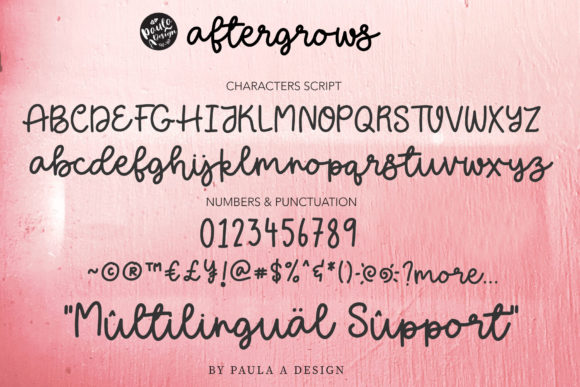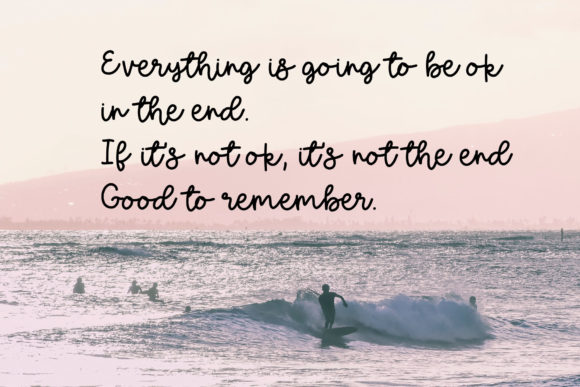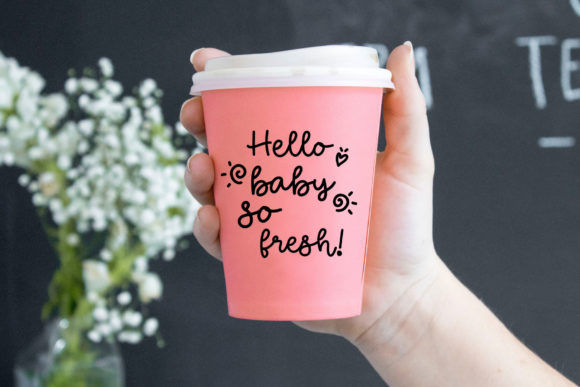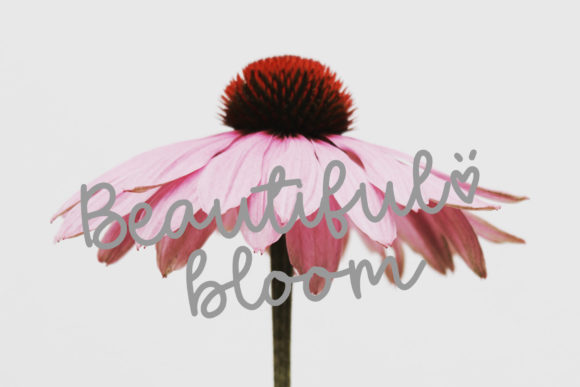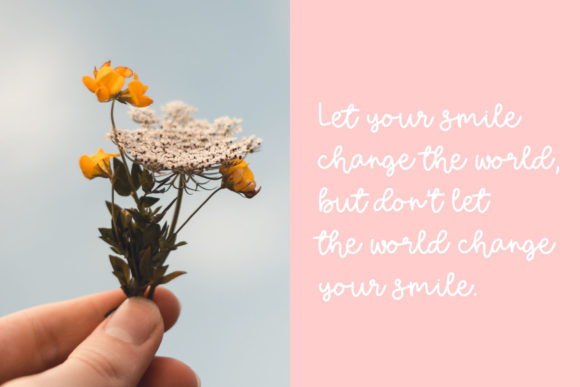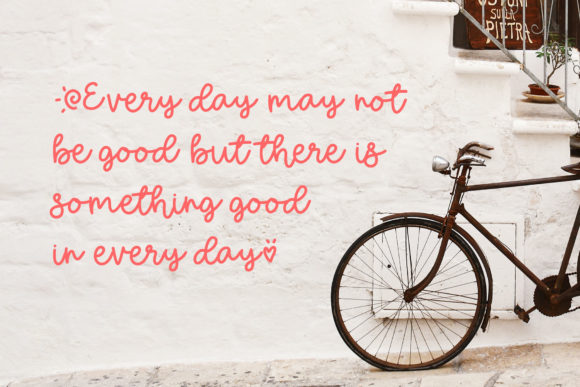
The Aftergrows Font: A Chic Brush Font for High-Impact Headlines
Have you ever been working on a design project, and suddenly, you’re stuck on finding the perfect font? I recall a recent experience where I was tasked with creating an invitation for a friend’s wedding. The theme was playful, elegant, and modern, and I was determined to find a font that would match. That’s when I stumbled upon the Aftergrows font, a chic brush font that instantly caught my attention.
A Personal Review of Aftergrows Font
As a designer, I’m always on the lookout for fonts that can add a unique touch to my projects. Aftergrows font did not disappoint. Here’s what I love about it:
- ✨ Beautifully crafted letters: Every single letter has been carefully created, giving it a personal and handmade feel.
- ✅ Perfect for high-impact headlines: The font’s playful and elegant vibe makes it ideal for headlines, titles, and captions.
- 🎉 Versatile: It can be used for various design projects, including invitations, branding, logos, blogs, and more.
While I love Aftergrows font, there are a few things to keep in mind:
- 🤔 Limited use for body text: Due to its playful and decorative nature, Aftergrows font might not be the best choice for body text or lengthy paragraphs.
- ⚠️ Legibility at small sizes: Like many script fonts, Aftergrows may lose legibility when used at very small sizes.
The Designer Inspiration Behind Aftergrows Font
Although the true story behind Aftergrows font remains a mystery, it’s easy to imagine that the designer was inspired by the world of hand-lettering and calligraphy. Perhaps they wanted to create a font that would bring a touch of playfulness and whimsy to designs, while still maintaining an air of sophistication.
| Q: Is Aftergrows font suitable for body text? | A: While it’s possible to use Aftergrows font for body text, it’s primarily designed for headlines and titles due to its playful and decorative nature. |
| Q: Does Aftergrows font include OpenType features? | A: Yes, Aftergrows font comes with OpenType features, including stylistic alternates and glyphs, which can be accessed in compatible design software. |
| Q: Is Aftergrows font available in different weights or styles? | A: The standard version of Aftergrows font may not come in multiple weights or styles, but it’s versatile enough to be used in various design contexts. |